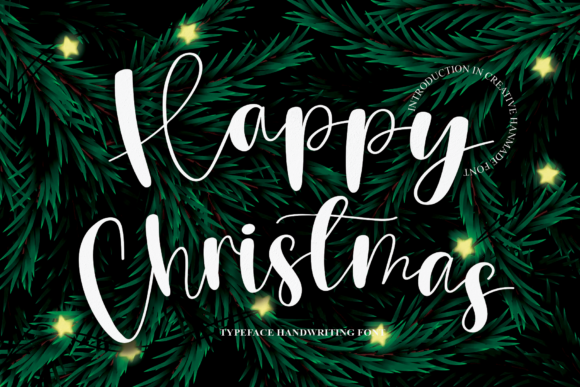
The Magic of the Holiday Season: Introducing Happy Christmas Font
As the snowflakes start to fall and the twinkling lights adorn your home, you can’t help but feel a spark of creativity. The holiday season is the perfect time to get crafty and show your loved ones how much you care. Whether you’re designing greeting cards, creating gift tags, or crafting a festive social media post, you need a font that captures the essence of the season.
That’s where the Happy Christmas Font comes in – a sweet and cursive handwritten font that adds a touch of joy and romance to any design. With its gentle, flowing lines, this font is perfect for adding a whimsical feel to your holiday projects. As a designer, you’ll appreciate the versatility of the Happy Christmas Font, which looks gorgeous on a variety of design ideas, from invitations to gift wrap.
Key Features of “Happy Christmas Font”
- Unique Characteristic: The font features a playful, hand-drawn design with intricate details and ornaments, perfect for festive and holiday-themed designs.
Happy Christmas Font Review
Overall, I found the Happy Christmas Font to be a charming addition to any holiday design project. ✨ The font’s playful, cursive design is sure to evoke feelings of joy and festivity. It’s perfect for creating eye-catching posters, greeting cards, or social media graphics.
One of the standout features of this font is its versatility. It works well in both uppercase and lowercase forms, and the varying line weights add a touch of elegance to any design. ✨ Additionally, the font includes a range of ornaments and decorations that can be used to add an extra layer of festive flair.
However, there are a few limitations to consider. ⚠️ For one, the font may not be suitable for body text, as the cursive design can be difficult to read in long blocks of text. Additionally, some of the ornaments may be a bit too elaborate for certain designs.
- Works well for headings and titles
- Includes a range of ornaments and decorations
- Versatile and easy to use
- Perfect for holiday-themed designs
Overall, I would recommend the Happy Christmas Font for any designer looking to add a touch of festive flair to their holiday projects. While it may have some limitations, its charm and versatility make it a valuable addition to any design toolkit.